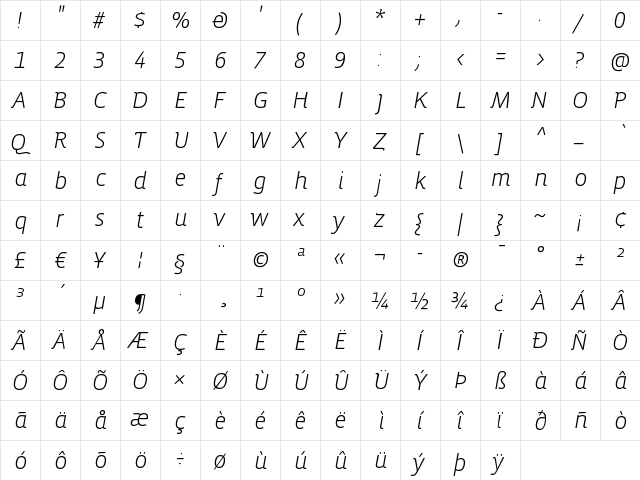
VistaSansAltLightIta Regular
| Designer | Xavier Dupre |
Design Context for VistaSansAltLightIta Typeface
VistaSansAltLightIta is a composed and adaptable typeface that performs quietly and consistently across a wide range of design contexts. Its slender proportions lend an understated elegance to any composition.